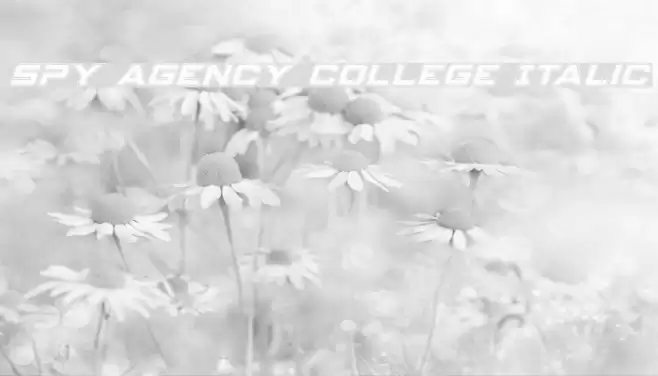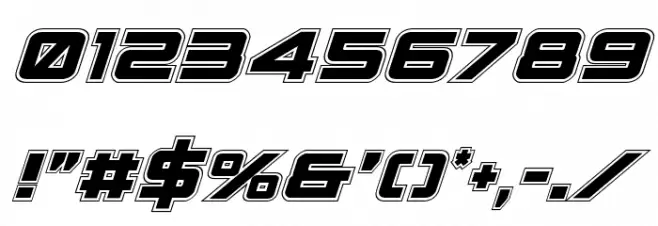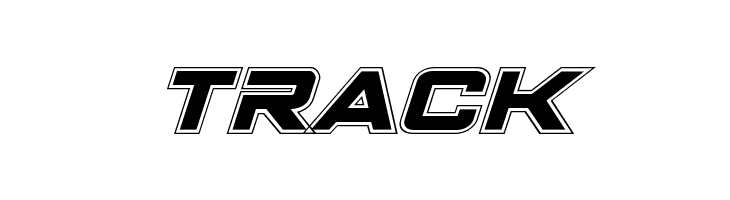
Spy Agency College Italic Font
Spy Agency College Italic Description
This font features a bold, italicized style with a strong, dynamic presence. The characters are designed with a distinct slant, giving them a sense of motion and urgency. Each letter is outlined, adding depth and a three-dimensional effect. The font is highly legible, with clear, sharp edges and consistent line thickness. The numbers and special characters maintain the same bold and italicized characteristics, ensuring uniformity across all elements. This font is ideal for creating impactful headlines or titles that demand attention.
Bold, italicized font with outlined characters and a dynamic, three-dimensional effect from Uncategorized fonts.
- Proposed Projects: Ideal for sports branding, action movie posters, video game titles, and dynamic advertising campaigns.